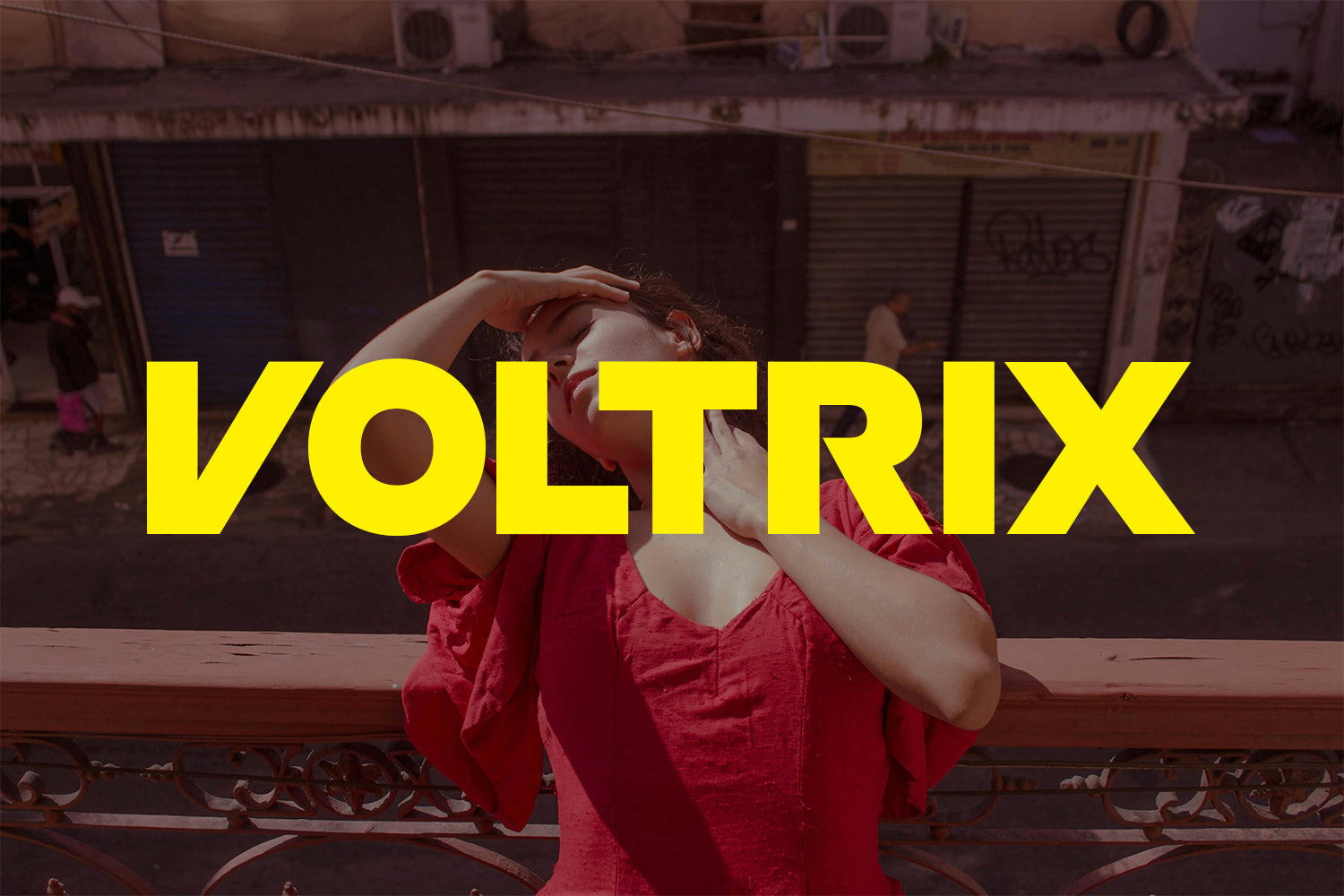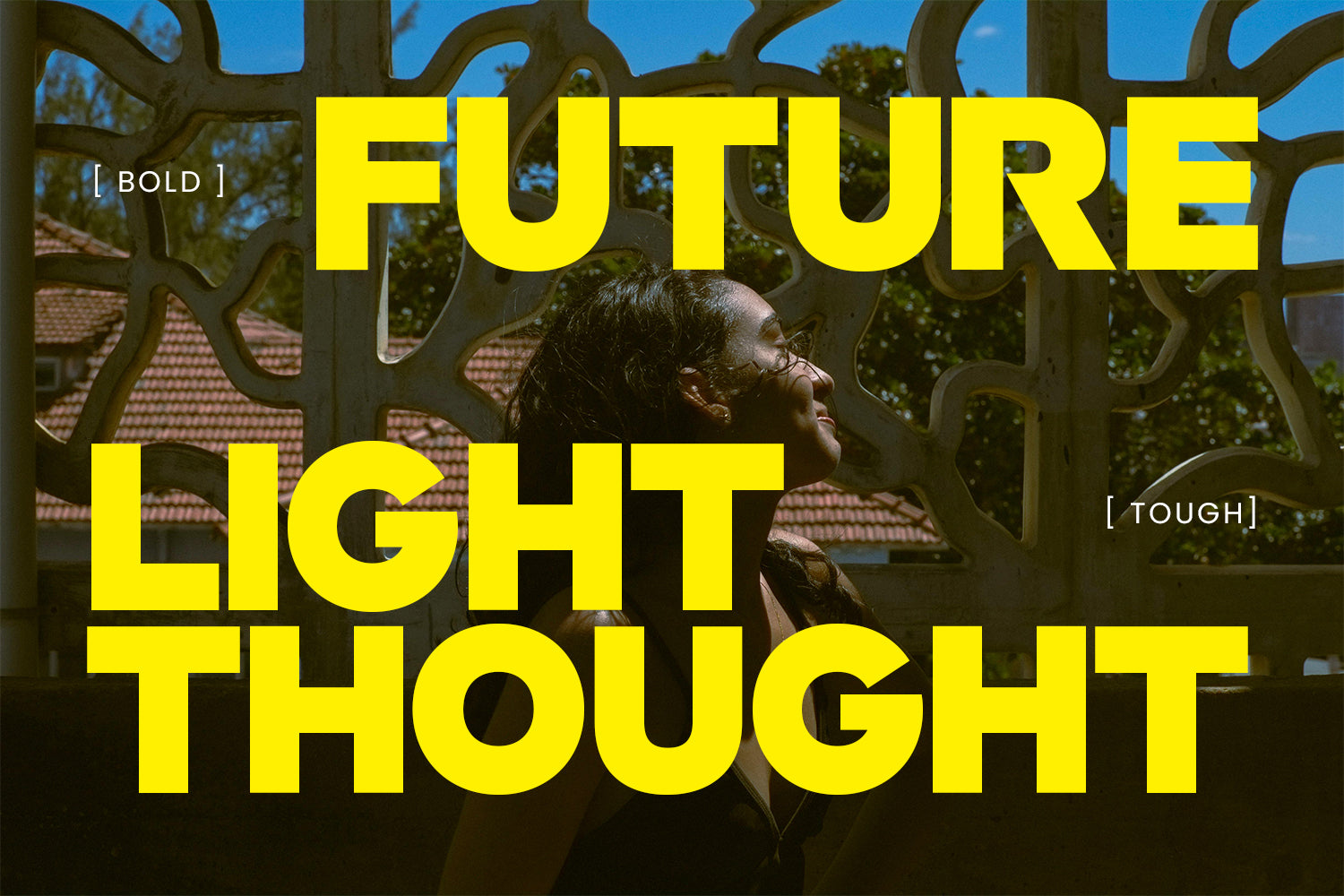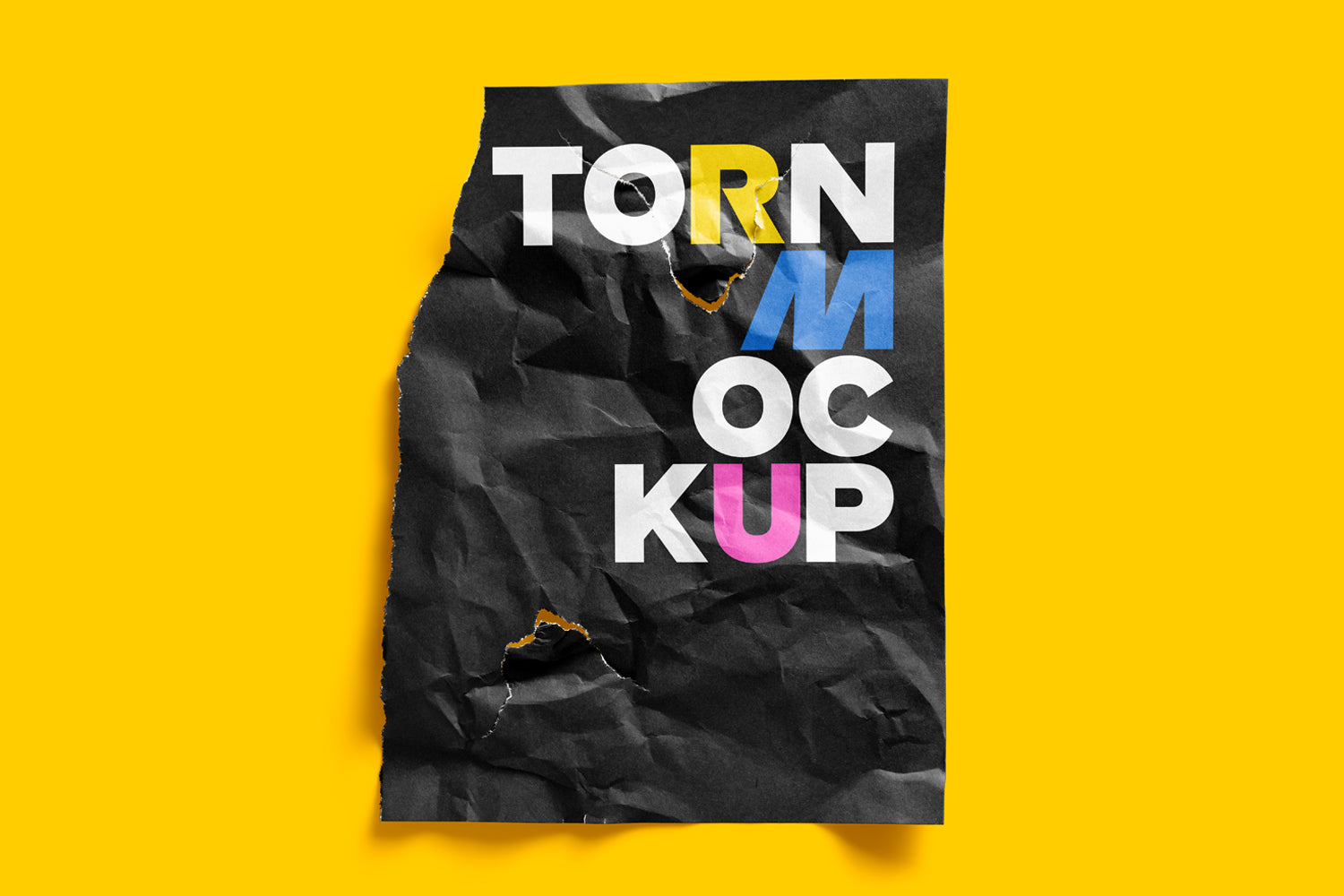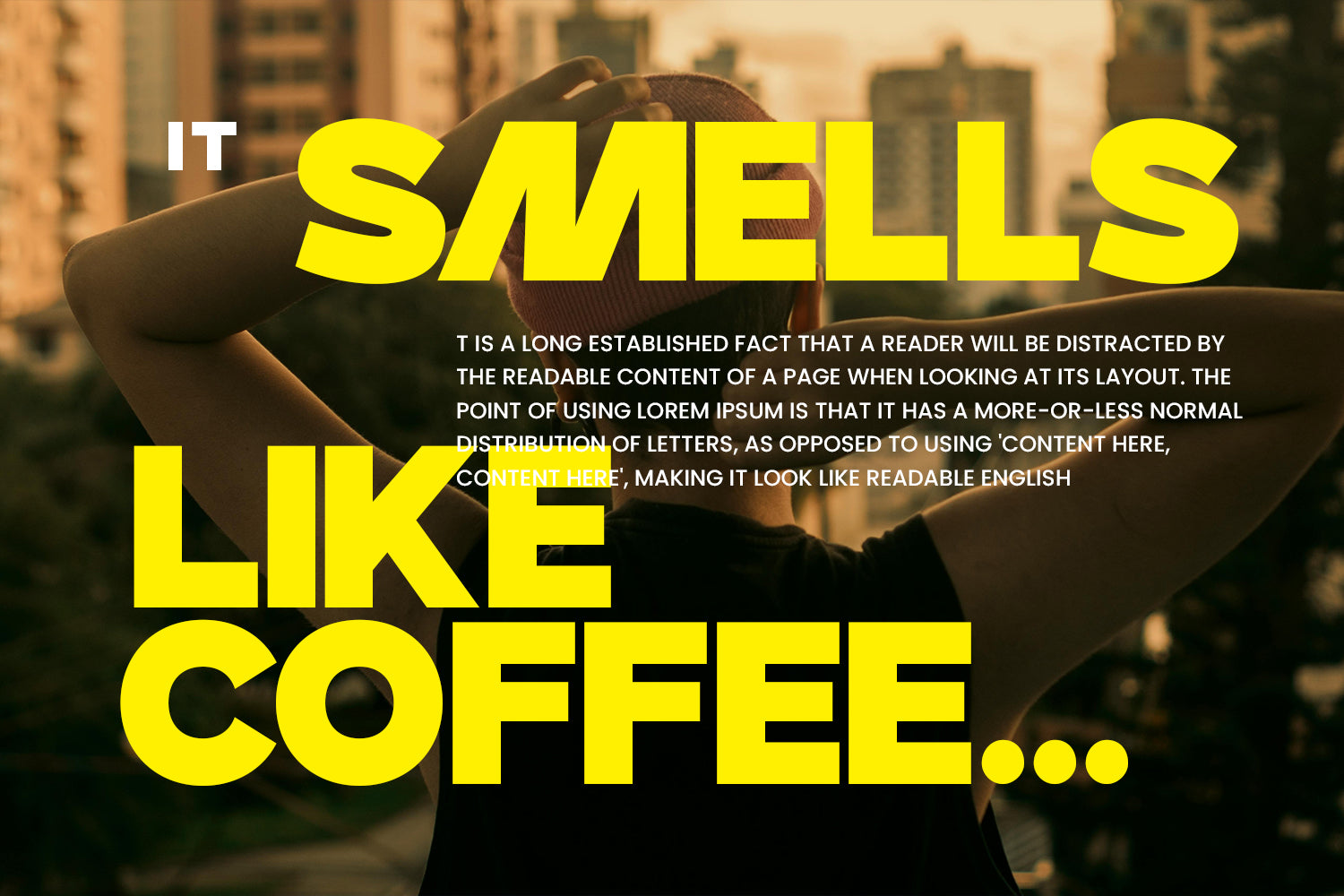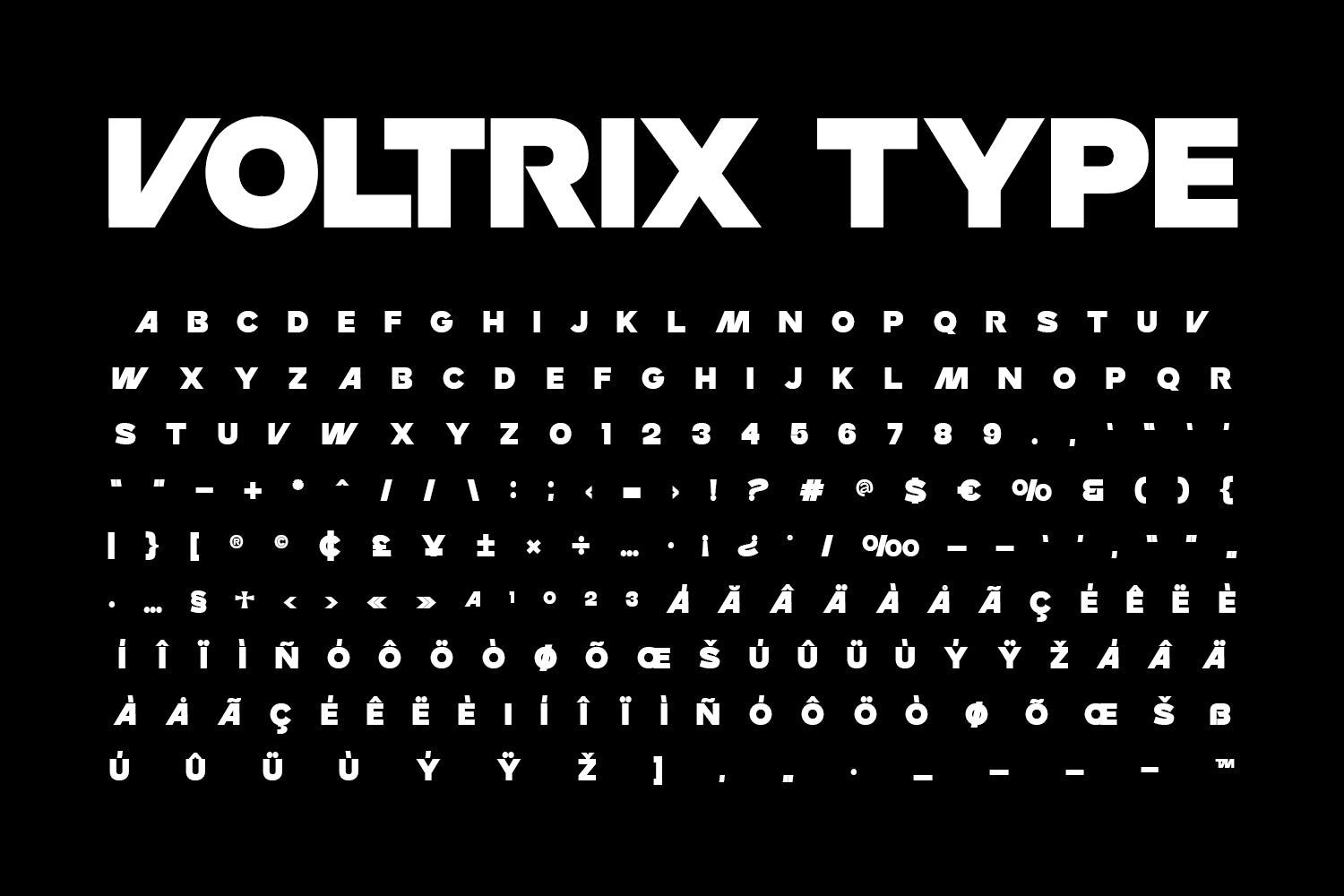
Voltrix Display
Voltrix – Bold Modern Display Font
Voltrix is a bold and powerful display typeface designed to make a statement. With its strong geometric forms, condensed proportions, and smooth curves, this font is perfect for creating eye-catching headlines, posters, branding, packaging, social media graphics, and more.
Whether you’re working on fashion editorials, album covers, or modern advertising campaigns, Voltrix brings a confident and stylish touch to your designs. Its versatility allows you to shrink, stretch, or squish the letters to fit your creative vision while still maintaining a striking presence.
Features:
- Uppercase & lowercase letters
- Numbers & punctuation
- Multilingual support (including accented characters)
- Special symbols & currency signs
- Perfect for posters, branding, magazines, fashion projects, and digital media.